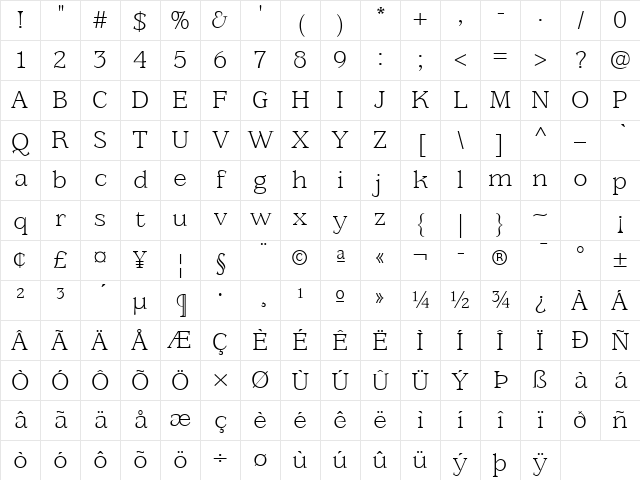
AISwan Light Expanded Free Font
AISwan Light Expanded
Foundry: John Pugh
Design Context for AISwan
AISwan is a composed and adaptable typeface that performs quietly and consistently across a wide range of design contexts. Its slender proportions lend an understated elegance to any composition.